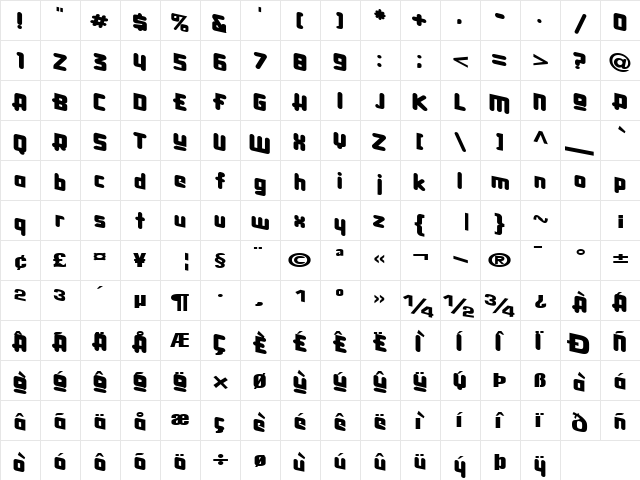
Cater Regular
Design Context for Cater Typeface
Cater is a composed and adaptable typeface that performs quietly and consistently across a wide range of design contexts.